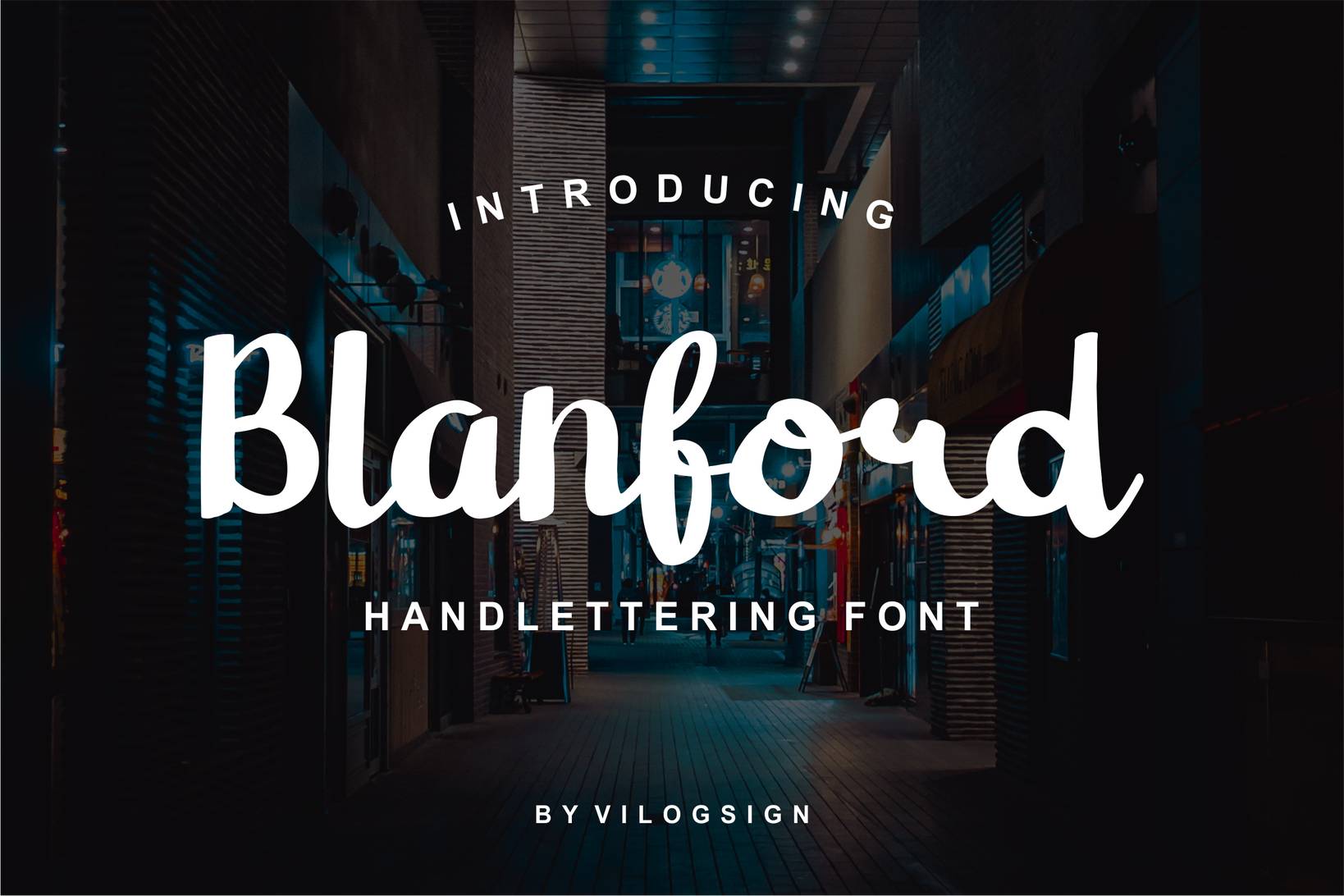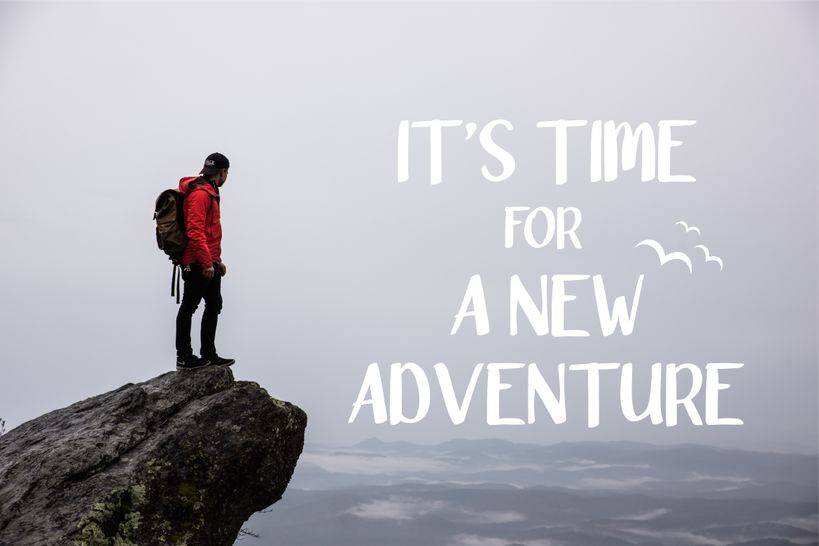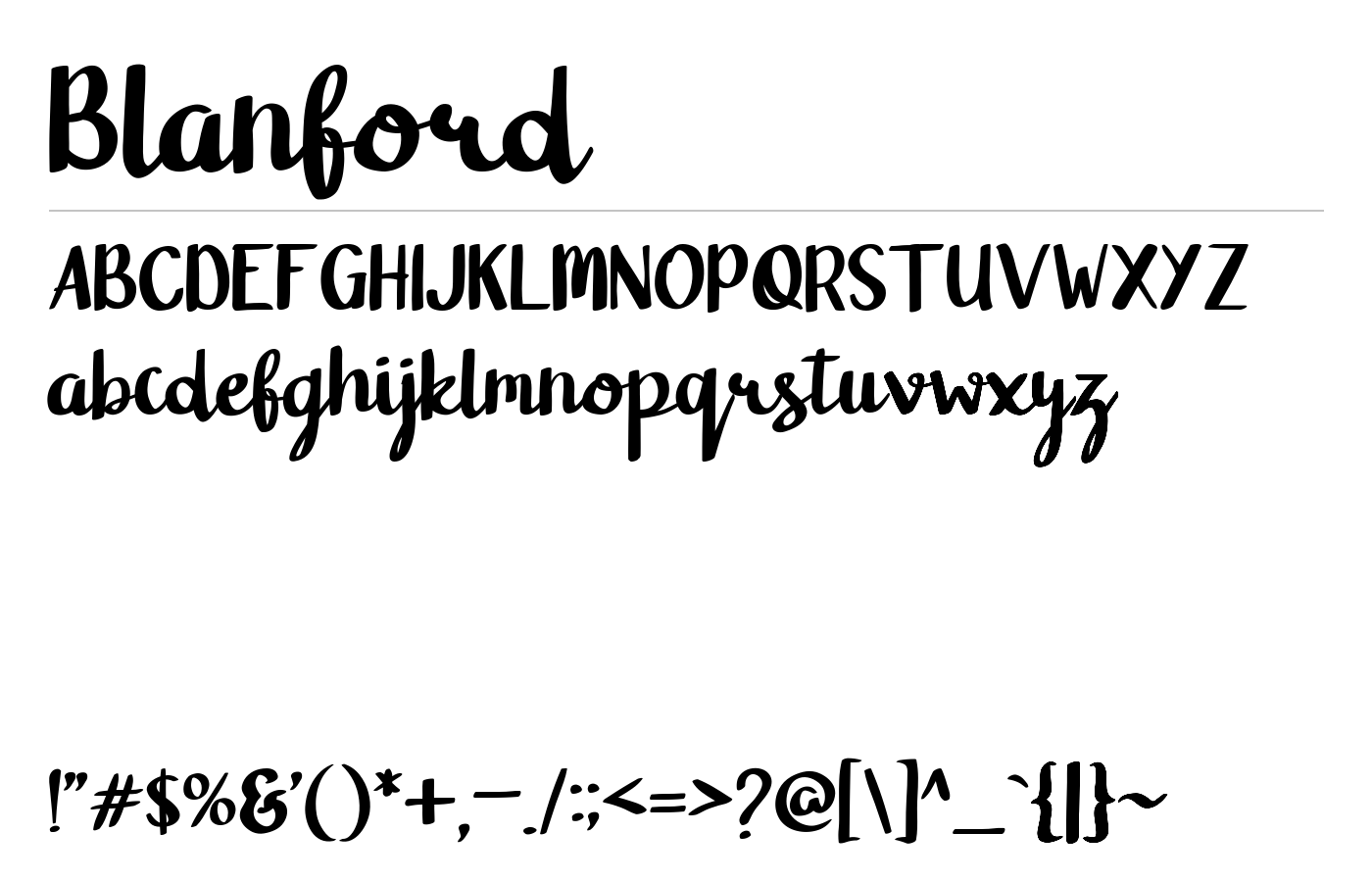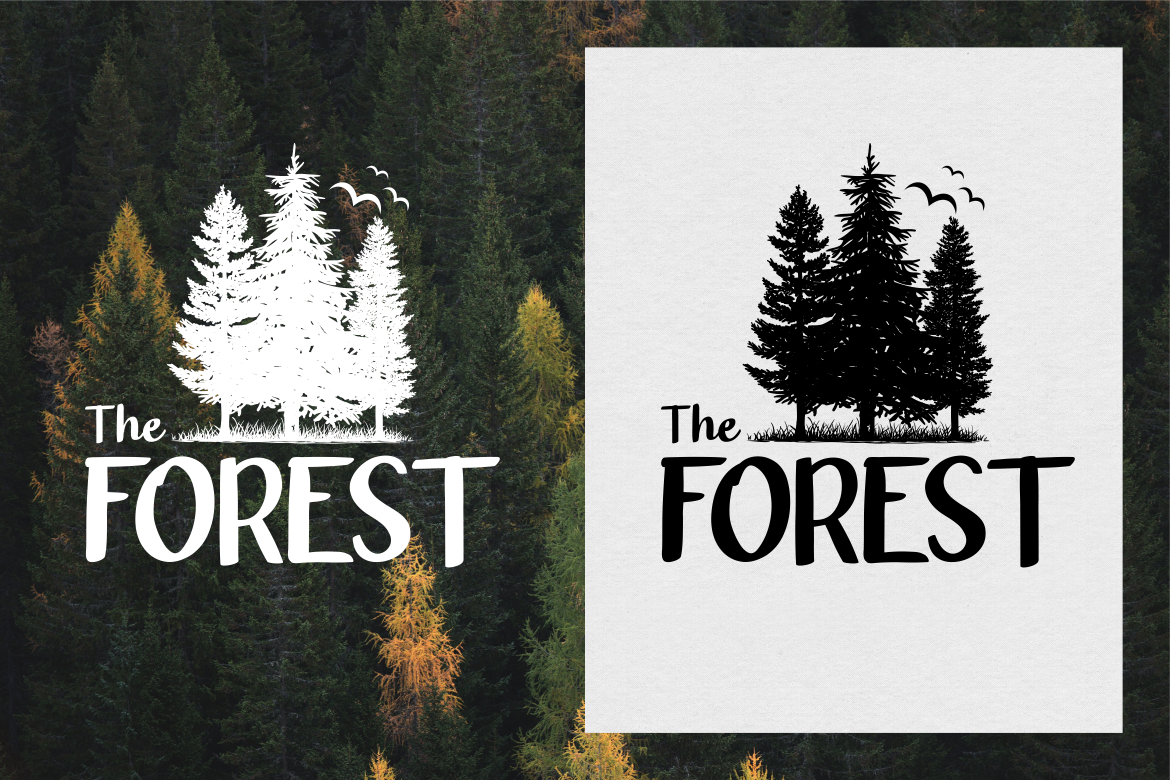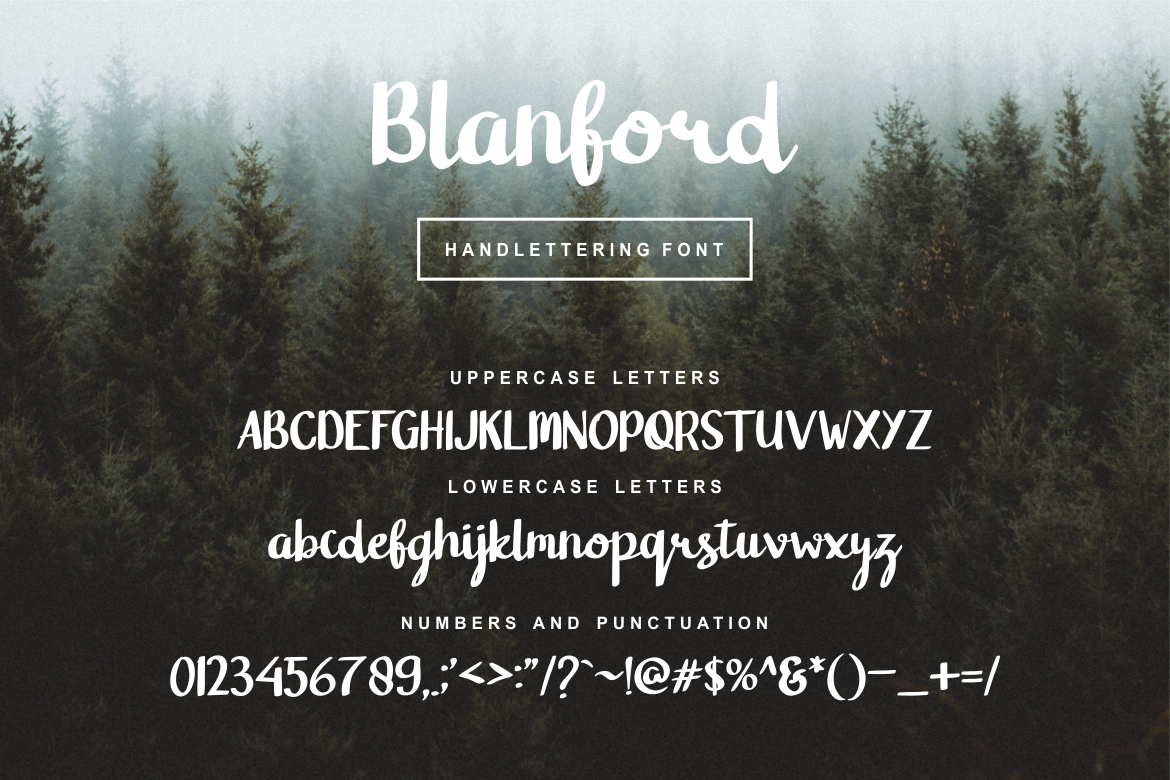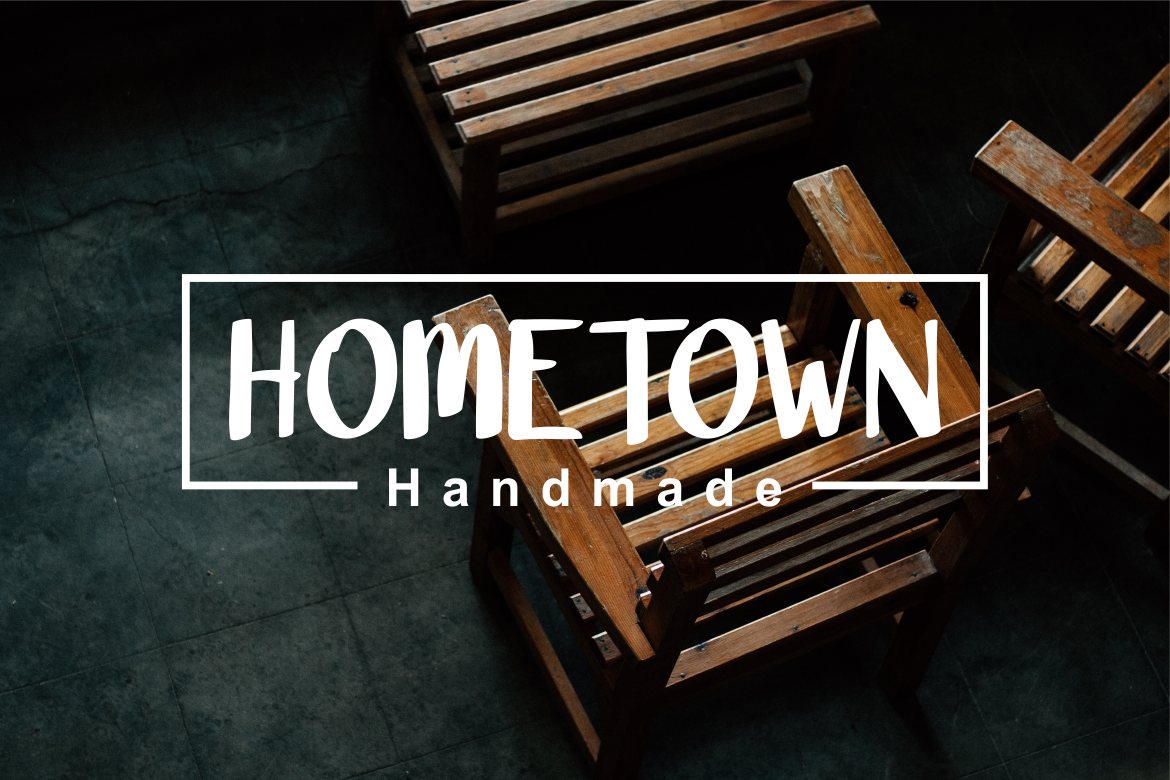
Blanford is a lively script font with bold, rounded strokes and a casual, hand-lettered feel that brings warmth and personality to any design. Its upright, friendly letterforms feature a consistent medium weight and smooth curves, making it ideal for playful branding, invitations, and creative headlines where an approachable and stylish touch is desired. This font works especially well for projects that want to convey a sense of friendliness and creativity without sacrificing readability.
Blanford Font
About Blanford Font
| Font family | Blanford Font |
| Designer | Vilogsign 2018 |